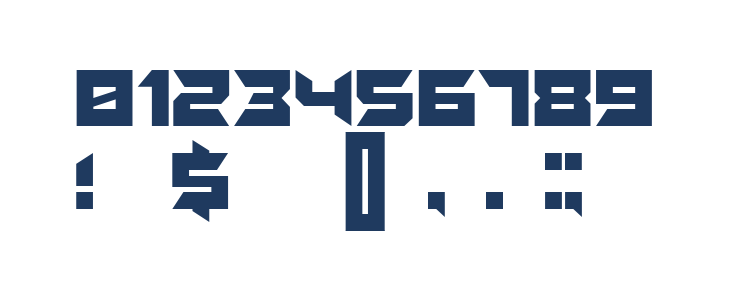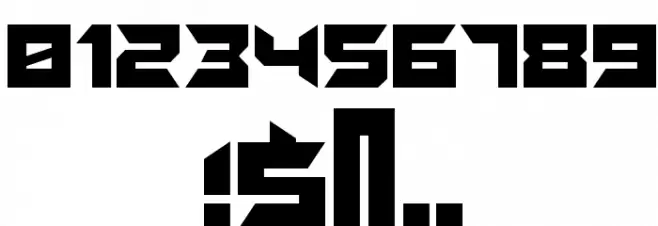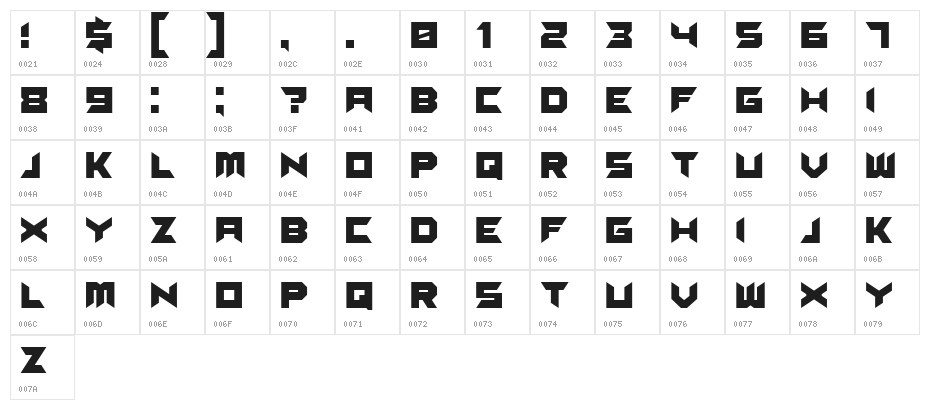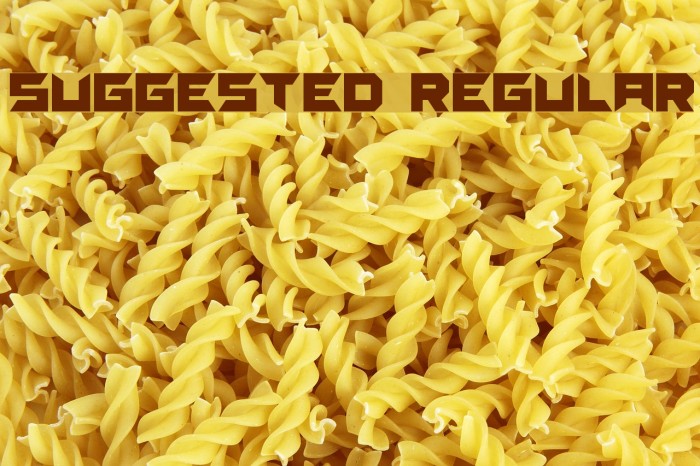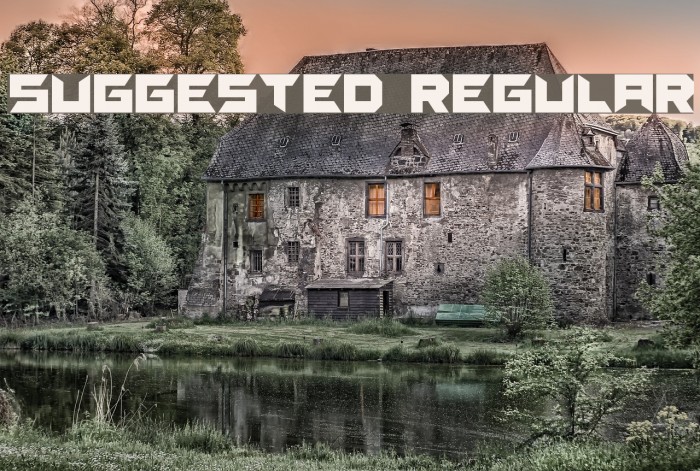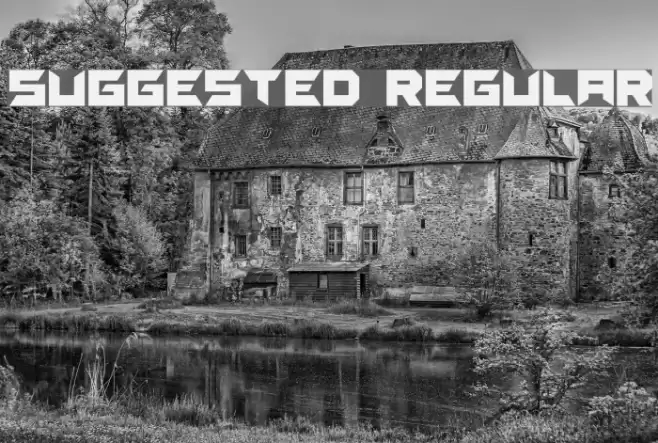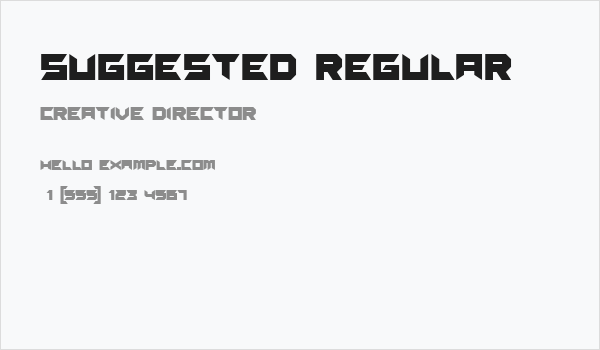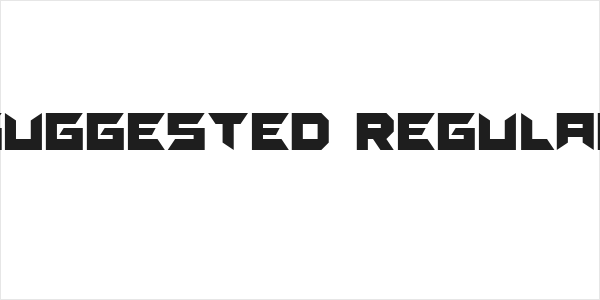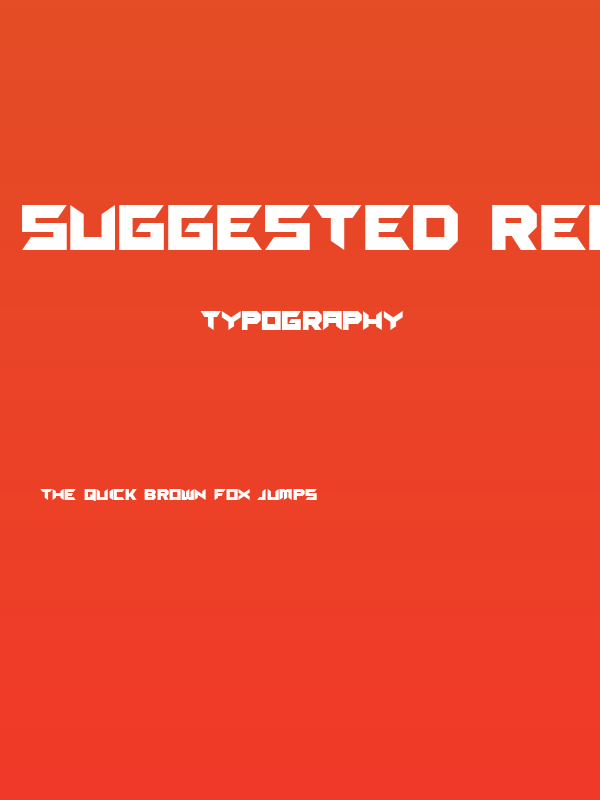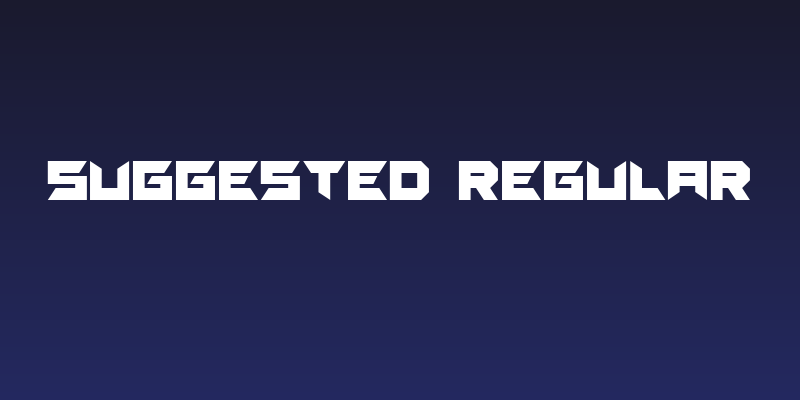
Suggested Regular Font
Suggested Regular Description
This font exhibits a bold, geometric style with sharp angles and a strong presence. The uppercase letters are characterized by their blocky, angular shapes, giving them a futuristic and industrial feel. The lowercase letters maintain this aesthetic, providing a consistent look across the typeface. Numbers are equally bold and angular, ensuring readability while maintaining the font's distinctive style. Special characters are designed to match the overall geometric theme, making them suitable for various design contexts. The font's boldness and unique style make it ideal for attention-grabbing headlines and logos.
| Overall Style | Futuristic, Industrial |
| Proposed Projects | Ideal for sci-fi themed projects, video game titles, tech branding, and modern posters. |